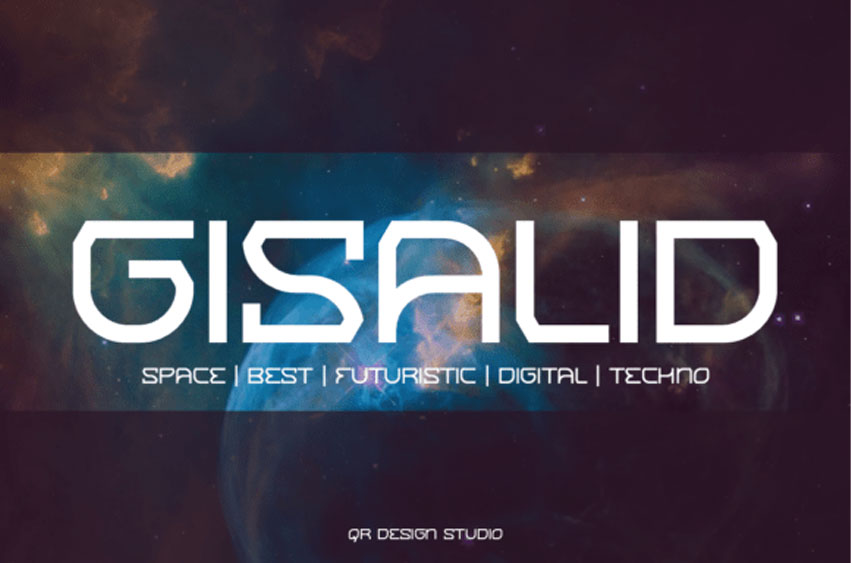
Gisalid Font is a cool and neat display font that combines simplicity with a geometric vibe. Featuring clean lines, balanced letterforms, and subtle rounded edges, it captures the essence of modern handwritten typography with a polished finish.
Ideal for branding, headlines, packaging, and digital content, it adds a warm and inviting touch to any design. With its crisp structure and versatile style, this font delivers clarity and charm in equal measure.